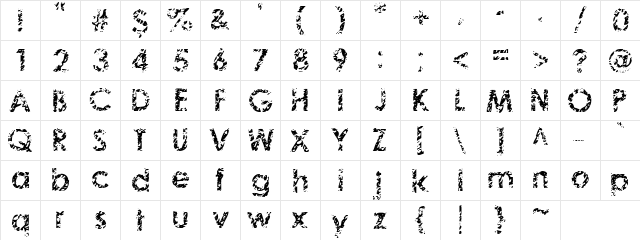
Whatsup Witchoo? Regular
Design Context for Whatsup Witchoo? Typeface
Whatsup Witchoo? is a composed and adaptable typeface that performs quietly and consistently across a wide range of design contexts.